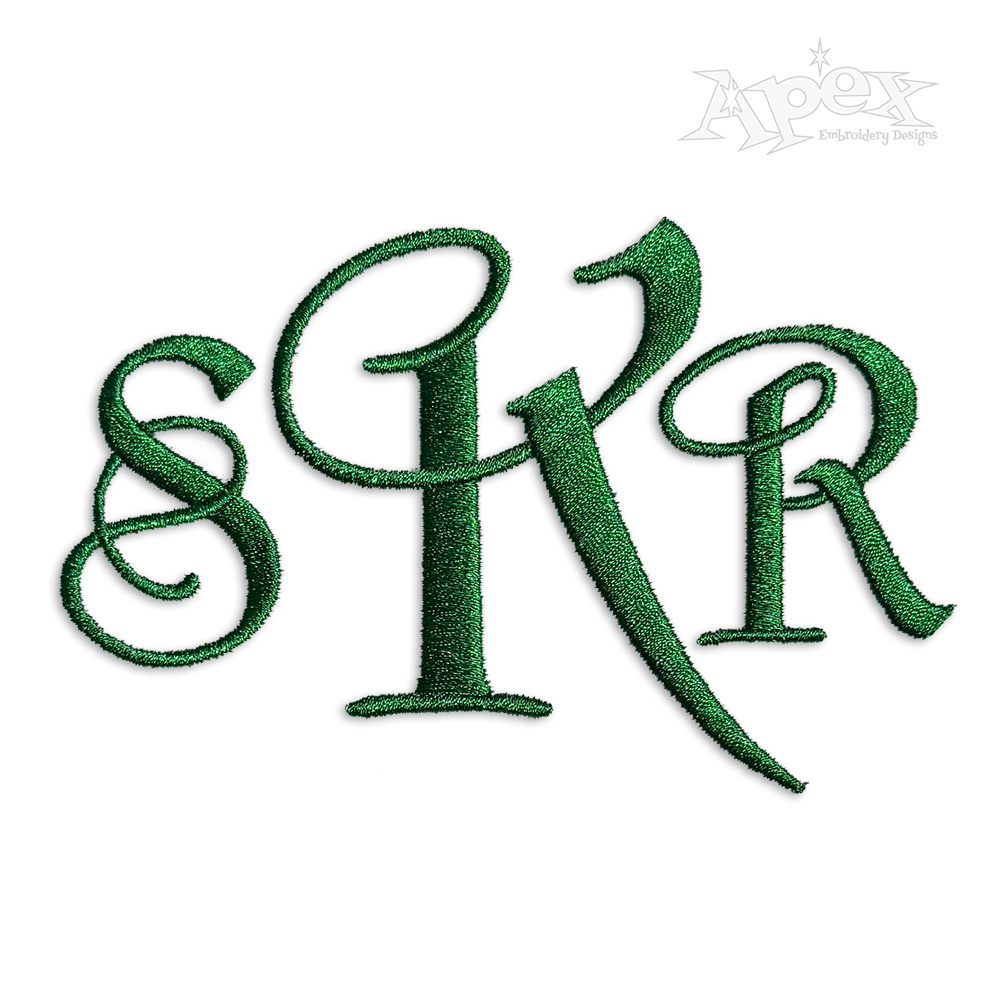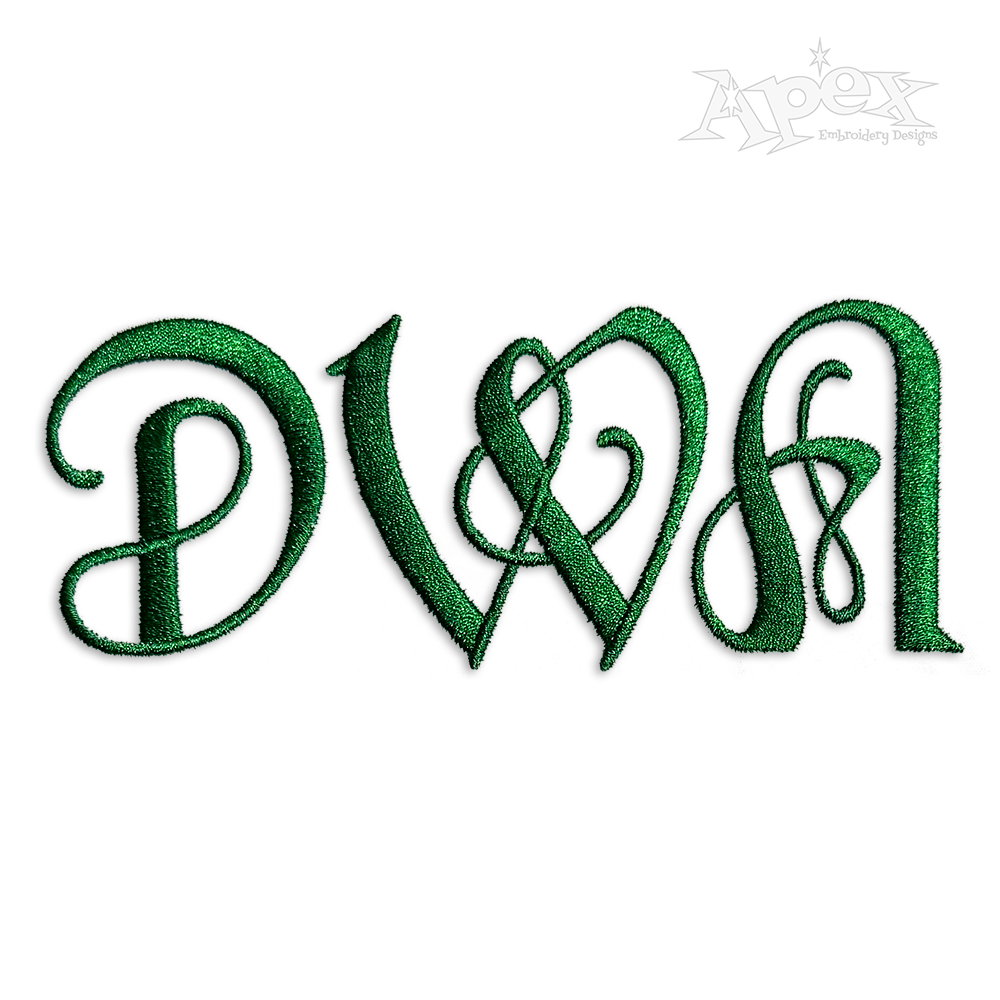
Enchanted Embroidery Font
Born from the daydream of vintage storybook romance and ornate European flourishes, the Enchanted Embroidery Font captures an ethereal elegance rarely found in digital threadcraft. When mapping each graceful glyph, our studio sought to balance the theatrical cadence of royal calligraphy with the spirited whimsy of botanical vines. Every sweeping tail, delicate flourish, and sculpted crest has been manually digitized to glide across fine textiles, evoking an unmistakable air of heirloom wonder and bespoke luxury.
Project Ideas for Enchanted Embroidery Font
The lyrical curves and ornate silhouette of the Enchanted alphabet make it a dream canvas for heirloom embroidery and bespoke gifting. Consider these artisanal applications for your next stitch project:
- Luxury Table Linens: Stitch matching single-letter monograms onto crisp linen cocktail napkins or a grand dinner runner for an elevated, regal tablescape.
- Bridal Trousseau & Keepsakes: Monogram bridal party satin robes, velvet ring pillows, or the interior lining of a wedding gown with romantic, sweeping initials.
- Bespoke Heirloom Bedding: Elevate Egyptian cotton pillowcases and coverlets with a stately three-letter monogram in subtle, tone-on-tone lustrous threads.
- Children’s Keepsakes: Adorn baptismal gowns, cashmere swaddles, and nursery wall pennants with a storybook touch that feels straight out of a classic fairy tale.
- Curated Everyday Accessories: Embellish structured canvas totes, structured wool berets, or cashmere scarves to transform everyday essentials into customized couture.
To showcase the majestic movement of these letterforms, thoughtful hooping and composition are key:
- Corner Diagonal Placements: Position individual initials at a 45-degree angle approximately 1.5 to 2 inches from the hem on dinner napkins and pocket squares for classic, old-world refinement.
- Center Chest Alignment: For loungewear, cardigans, and sweatshirts, center the monogram approximately 3 to 4 inches below the collar seam to create an authoritative, designer-inspired focal point.
- Asymmetrical Cuff Framing: Center an initial directly along the outer wrist edge of French-cuff blouses or pajamas for an unexpected flash of personalized elegance.
- Pillow & Sham Centering: On standard or Euro decorative shams, arrange your letters at absolute geometric dead-center, allowing the swooping flourishes room to breathe effortlessly without crowding decorative borders.
Enchanted Embroidery Font Craft & Letterform Details
What distinguishes the Enchanted Embroidery Font is our meticulous dedication to natural stitch dynamics. Rather than relying on automated conversion, each serif, loop, and crossbar has been individually plotted with adaptive satin stitch angles that mirror the natural direction of hand-drawn calligraphy. The fluid transition from slender, featherweight tendrils to rich, voluminous swells provides tactile relief and remarkable light play in polyester, rayon, and silk threads alike.
We designed the foundation with multi-layered, structural underlay stitching that stabilizes every curve before the top satin layer is laid down. This specialized architecture prevents fabric puckering, locks in sharp edge definition, and ensures that the intricate loops remain buoyant and pristine even on textured fabrics like terry cloth, waffle weave, and heavy linen. The resulting embroidery yields an ultra-smooth sheen and a hand-crafted finish that feels undeniably timeless.